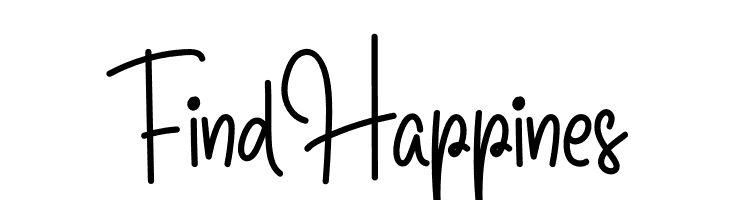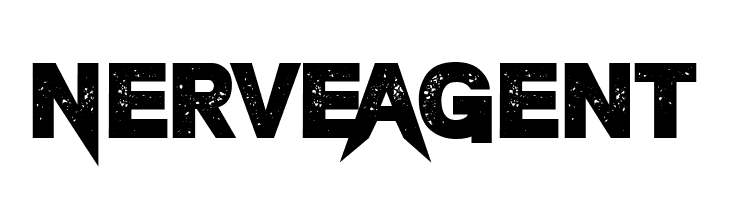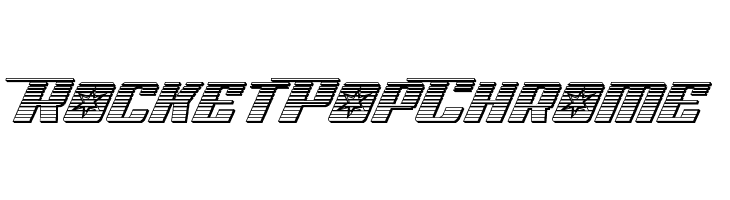
A bold, expressive script font with flowing, connected letterforms.
A bold, hand-drawn font with an expressive, uneven style.
A bold, expressive script font with flowing, cursive letterforms.
A graceful and elegant script font with flowing, cursive strokes.
A decorative font with bold characters inside heart shapes, topped with doves.
A playful dingbat font with matryoshka dolls and floral ornaments.
A futuristic, expanded italic font with angular and geometric design.
A playful, rounded font with smooth curves and consistent stroke width.
A modern, striped font with a digital, futuristic design.
设计师偏爱 regosel, Relight Script DEMO, Drenazmozgow, Battal free and BabyDualistic,因为其造型干净、适用范围广—— 从品牌识别到落地页、海报都能胜任。